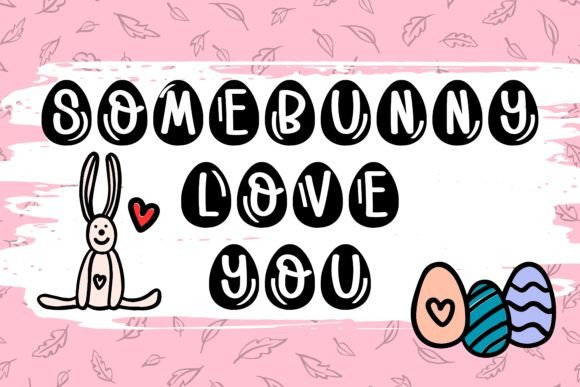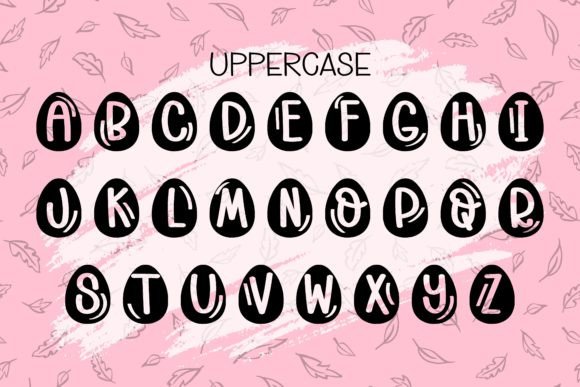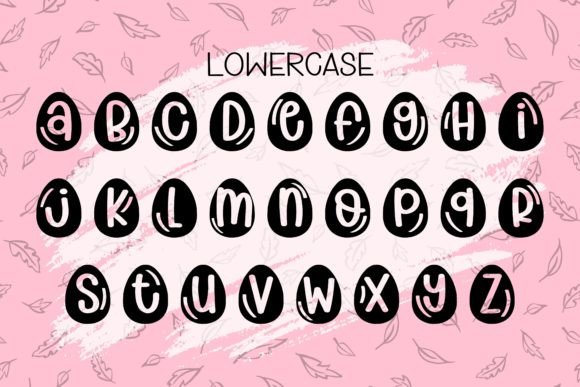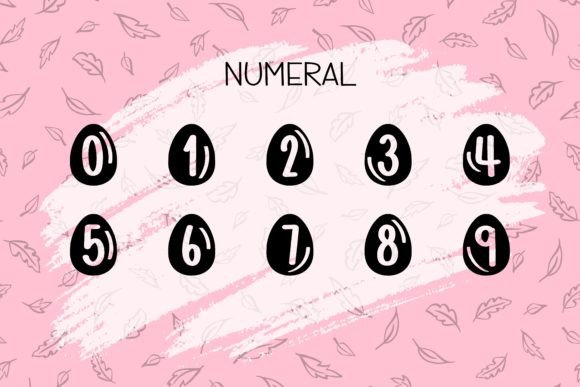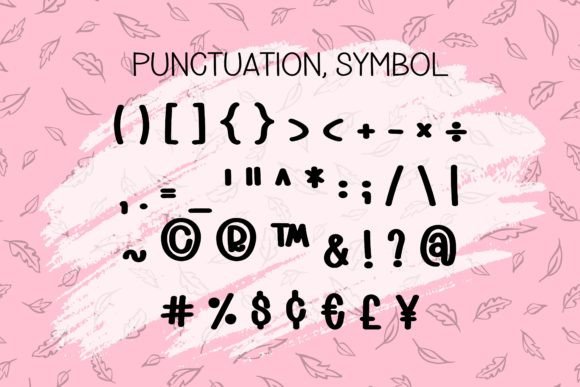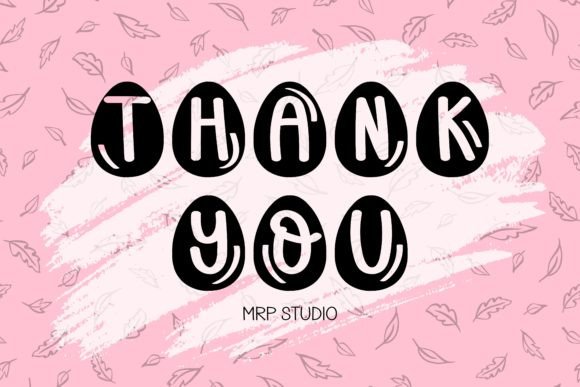
Introduction to Easter Vibes Font
Easter Vibes is designed in a cute and adorable decorative font style.
Use it for your lovely Easter Project and also your child-related project such as back to school, birthday party decoration, and any topic which needs bright and fun touch .
Key Features of Easter Vibes Font